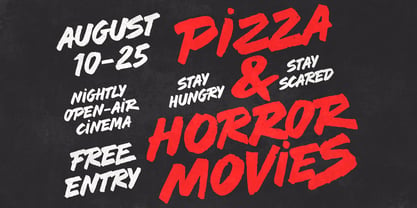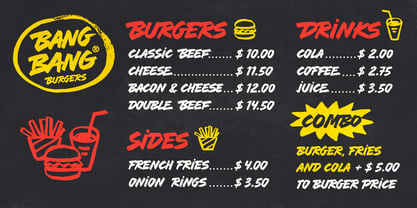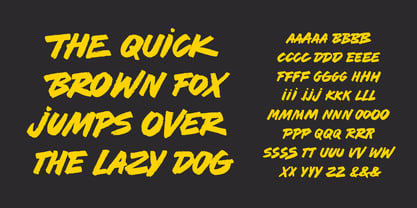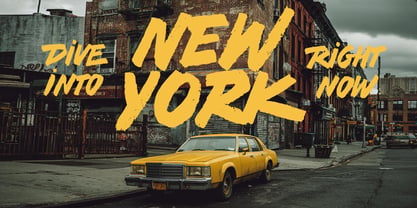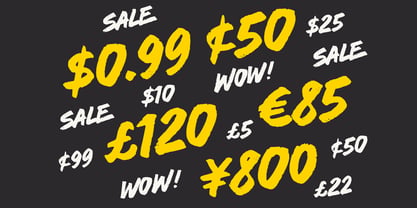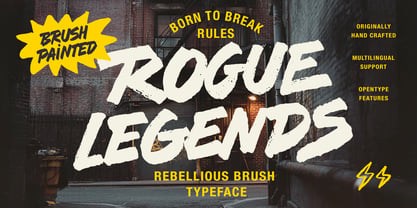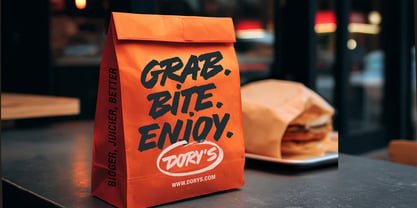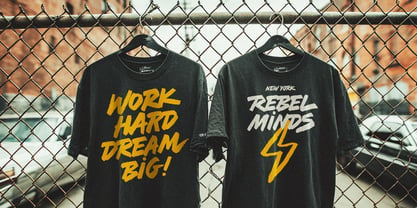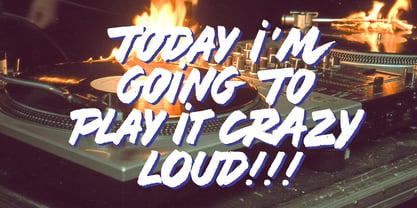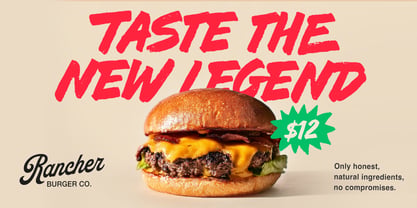
Rogue Legends
by Andrey Sharonov
Rogue Legends is a rebellious brush typeface made for bold statements and fearless projects. Inspired by street culture, extreme events, underground cinema, and hand-painted lettering, it brings raw energy and attitude into every word. With its rough brush texture, dynamic strokes, and imperfect edges, Rogue Legends feels alive and expressive — as if written in one powerful motion. It’s designed to stand out, grab attention, and break the rules of clean, polite typography.
Rogue Legends includes Stylistic and Contextual Alternates that work when the corresponding options are enabled. In addition, a quick way to get an alternate character is to add the number 2, 3, or 4 after the letter. This feature only works when the Standard Ligatures option is active.
This typeface works perfectly for:
• Posters & headlines
• Branding & logos
• Apparel & merchandise
• Album covers & packaging
• Food, music, horror, and street-inspired visuals